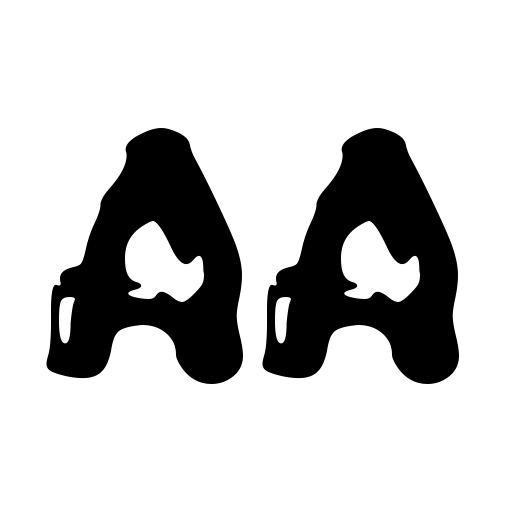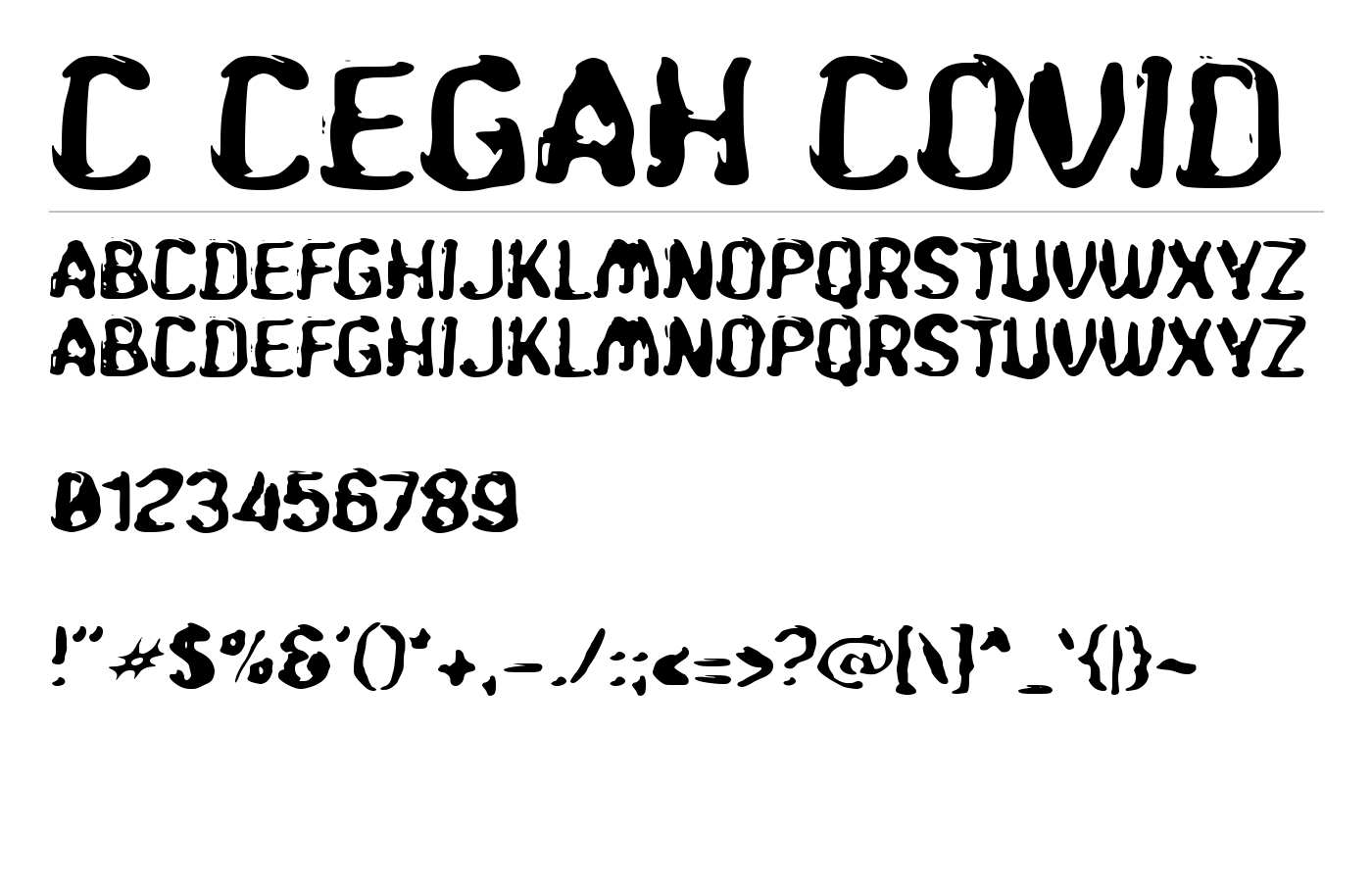
C Cegah Covid is a bold, quirky display font with a distressed, irregular look that creates a sense of urgency and rawness. Its heavy weight combined with uneven, organic shapes makes it ideal for attention-grabbing headlines or designs that need a handmade, impactful feel. This font works well in posters, awareness campaigns, or creative branding where a strong, edgy personality is desired.
c Cegah Covid Font